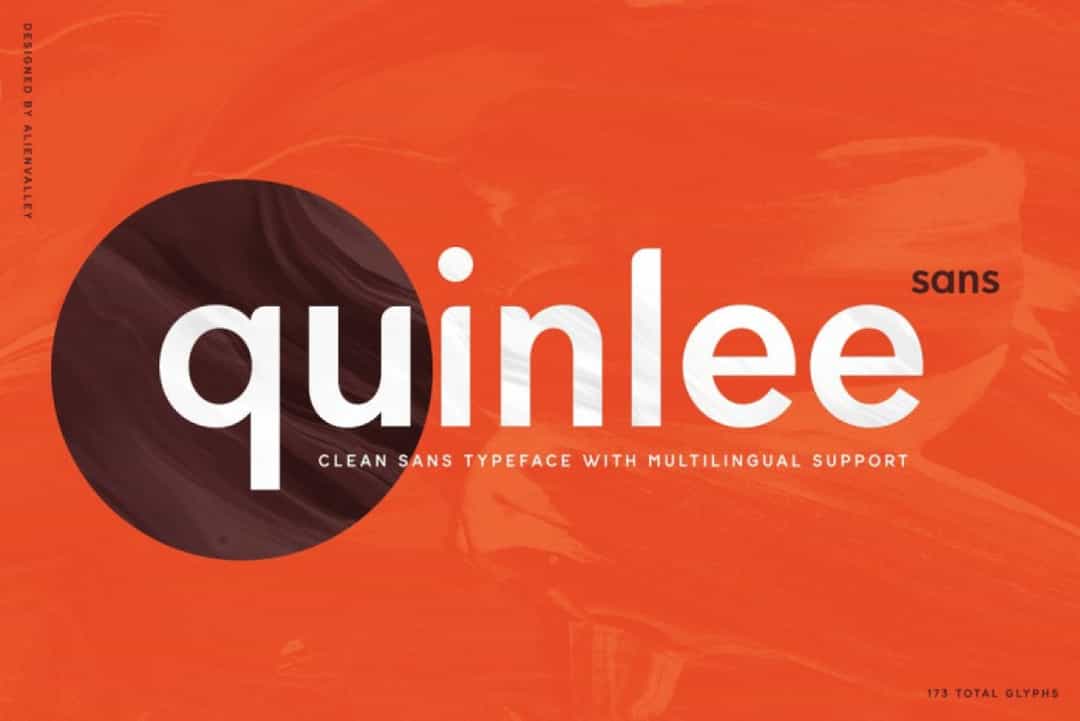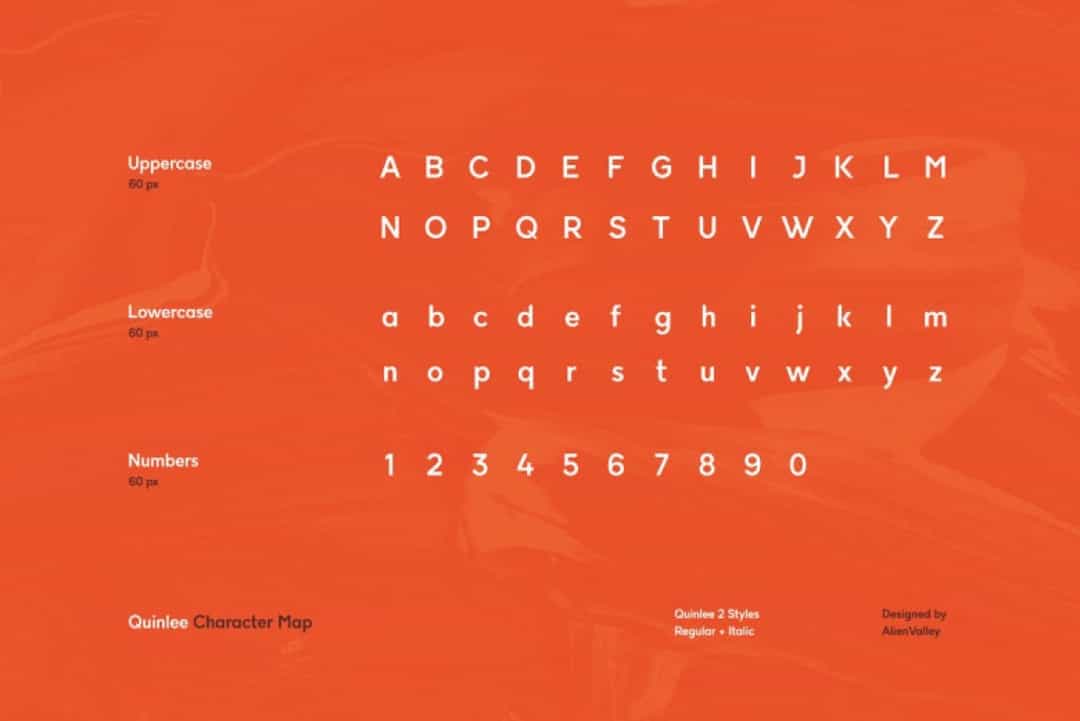
Quinlee Font is an extremely flexible sans-serif font featuring lowercase letters as well as wide multilingual support. This font was designed for headlines as well as longer pieces of text. Use it to create documents featuring large amounts of text such as flyers, magazines and websites!